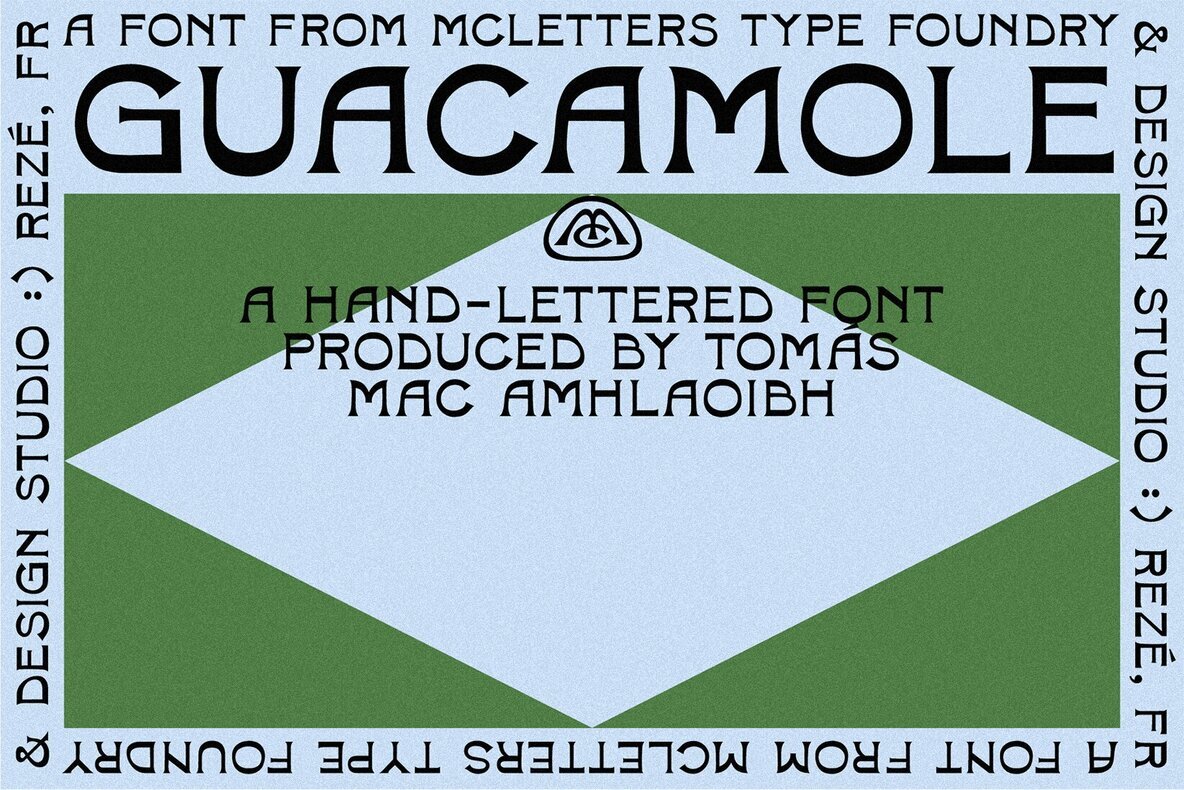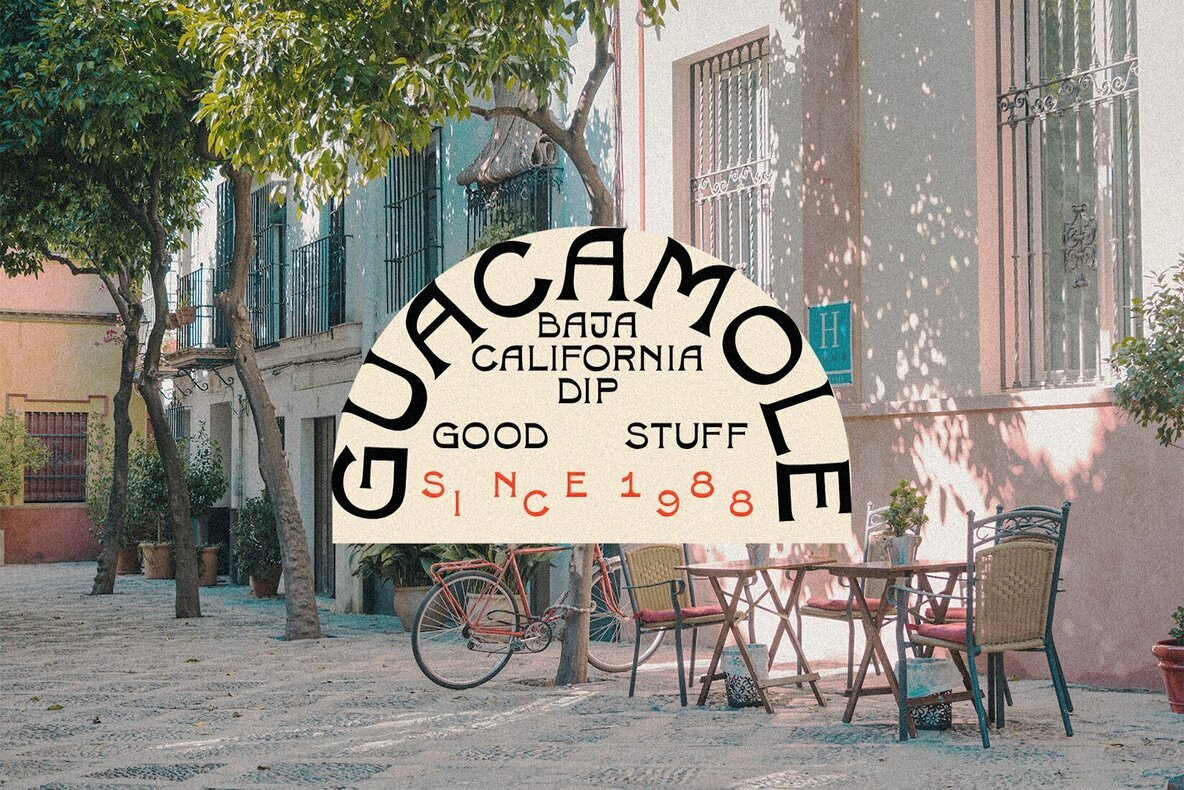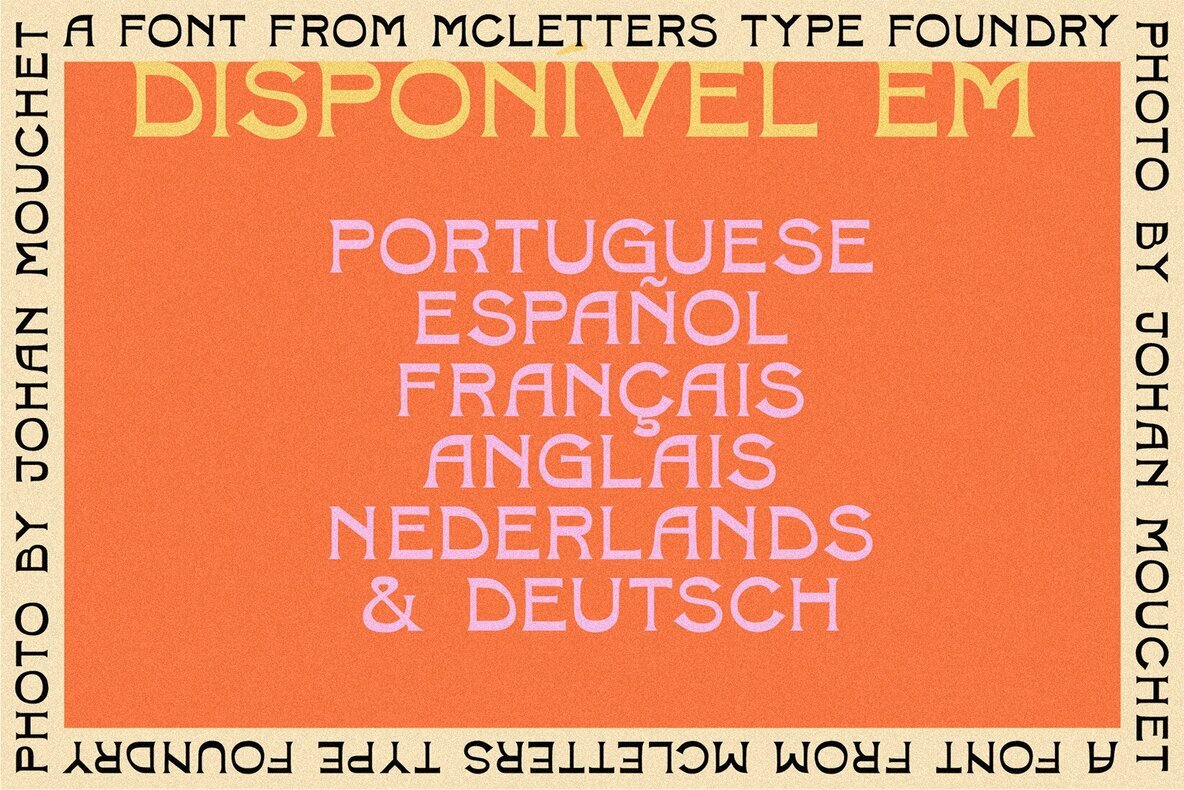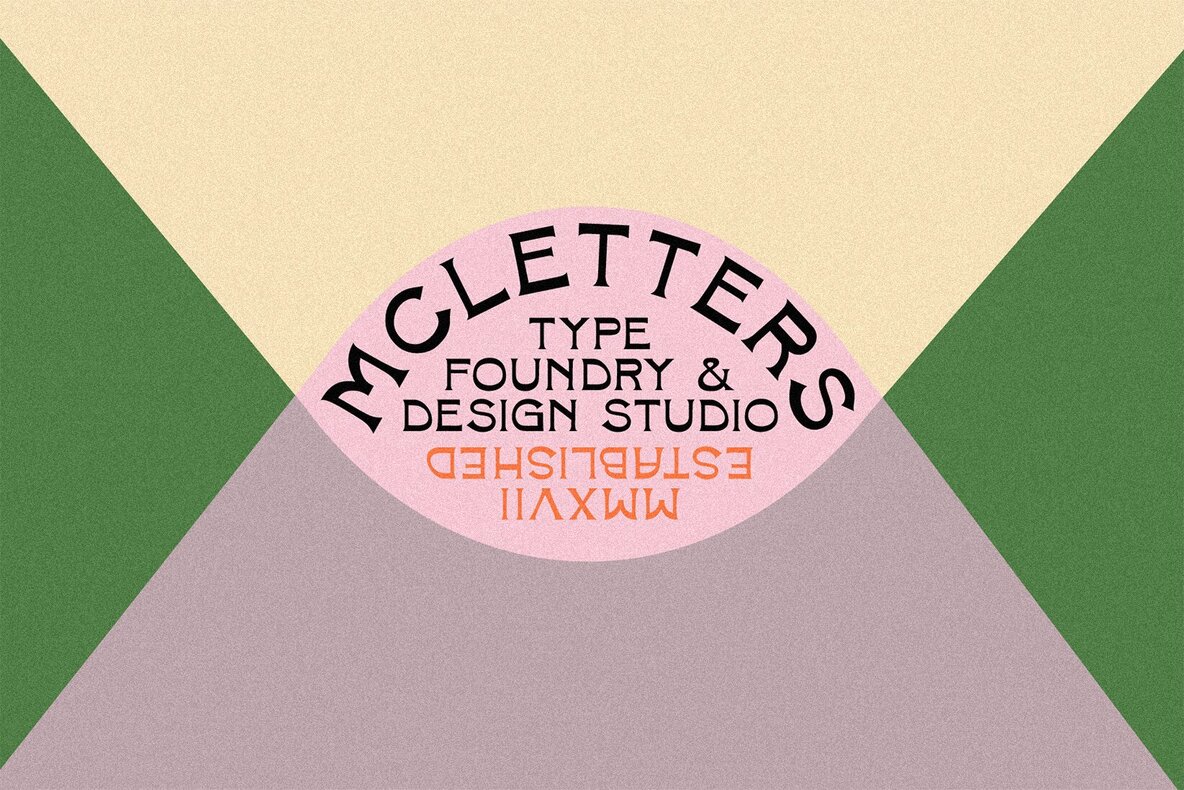
MC Guacamole Font
MC Guacamole
This bold geometric sans-serif font features rounded letterforms and a clean, minimalist aesthetic, making it perfect for impactful headlines, digital interfaces, and modern branding projects. Its uniform stroke width and strong presence are ideal for tech-driven designs, corporate logos, and display typography aimed at creating a futuristic vibe.